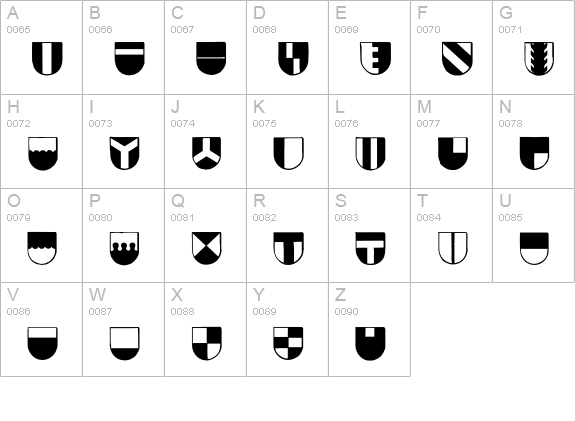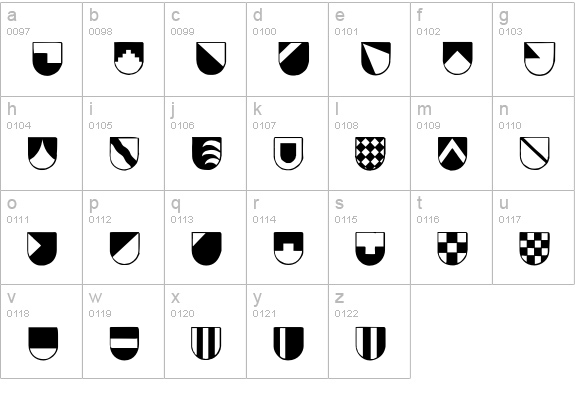
Blazon Font Details
Blazon font is a stunning display typeface that exudes elegance and sophistication. With its intricate details and stylish curves, Blazon is the perfect choice for projects that require a touch of luxury and class. This versatile font is ideal for creating logos, branding materials, invitations, and much more. The best part? Blazon font is completely free to download at FontsMarket.com, making it accessible to everyone who wants to add a touch of glamour to their designs. Don't miss out on this fantastic opportunity to enhance your projects with the timeless beauty of Blazon font. Download it today and elevate your design game to the next level!